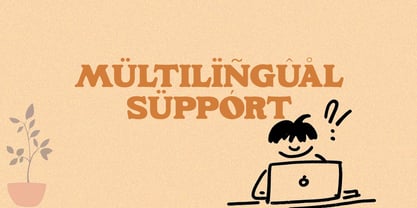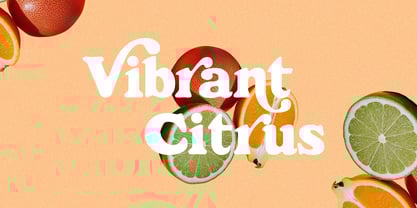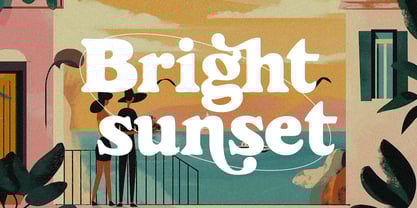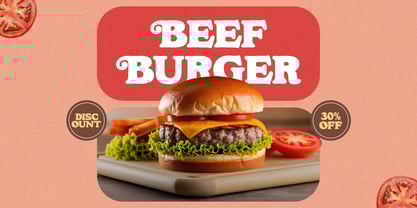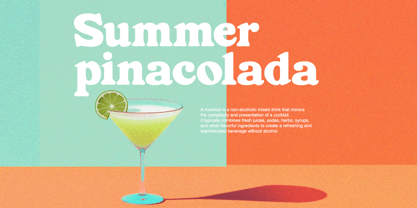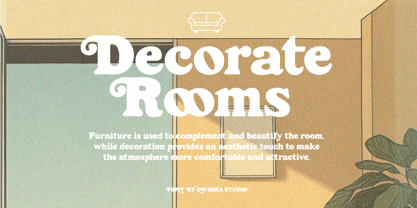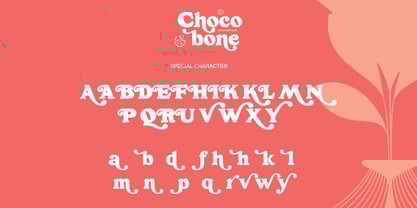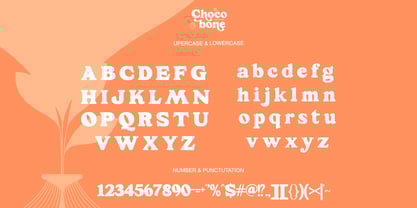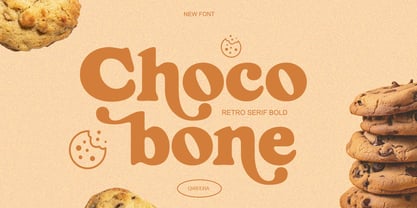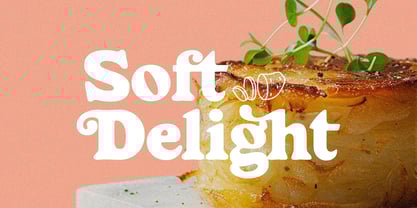
Choco Bone
The Choco Bone Font Family was designed by Idhham Cholid Rikzano Yahya and published by Qweera Studio. Choco Bone contains 2 styles and family package options.
Choco Bone – Bold Retro Serif Display Font for Standout Designs
Choco Bone is more than just a font—it’s a bold retro serif display typeface designed to make your designs stand out with confidence and style. With its regular and italic versions, Choco Bone combines the charm of retro aesthetics with modern versatility, making it perfect for branding, logo design, packaging, posters, and more. Whether you’re crafting a vintage-inspired logo or designing a bold poster, this font ensures your work radiates energy and creativity.
Where Retro Boldness Meets Modern Versatility
Choco Bone stands out with its strong serif design and stylish alternates, offering endless creative possibilities. Its versatility makes it ideal for projects that demand a bold, retro-inspired look, from corporate branding to creative packaging and posters. This font isn’t just a tool—it’s a statement of creativity and individuality.
Key Features
• Bold Retro Serif Display Design – Perfect for branding, logo design, packaging, and posters.
• Regular & Italic Versions – Versatile options for a variety of design needs.
• Stylish Alternates & Ligatures – Add a unique and creative touch to your designs.
• Retro Aesthetic with Modern Edge – Ensures your projects stand out with boldness and style.
• Multilingual Support – Compatible with over 20 languages, including English, French, German, Spanish, and more.
Elevate Your Designs with Choco Bone
Choco Bone isn’t just a font—it’s a tool to transform your creative projects into bold, retro-inspired masterpieces. Whether you’re designing for print, digital, or branding, this font ensures your work stands out with confidence and creativity.